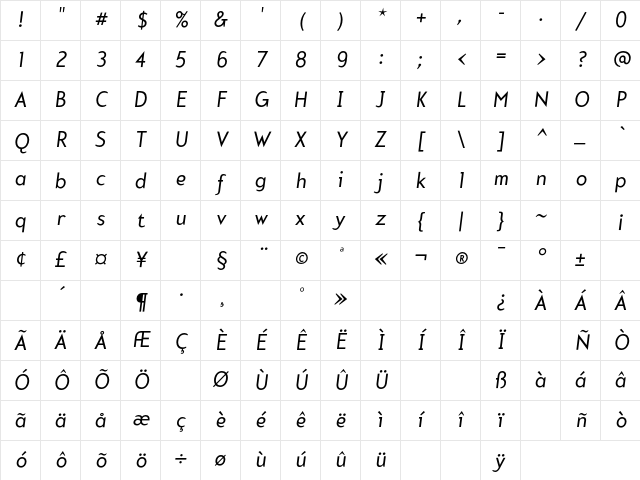
Mercury Italic
Design Context for Mercury
Mercury is a composed and adaptable typeface that performs quietly and consistently across a wide range of design contexts. The slanted form adds forward momentum and visual energy.
Pro Tip: Use Mercury for emphasis, pull quotes, and subheadings where its slanted energy can add rhythm to the layout.